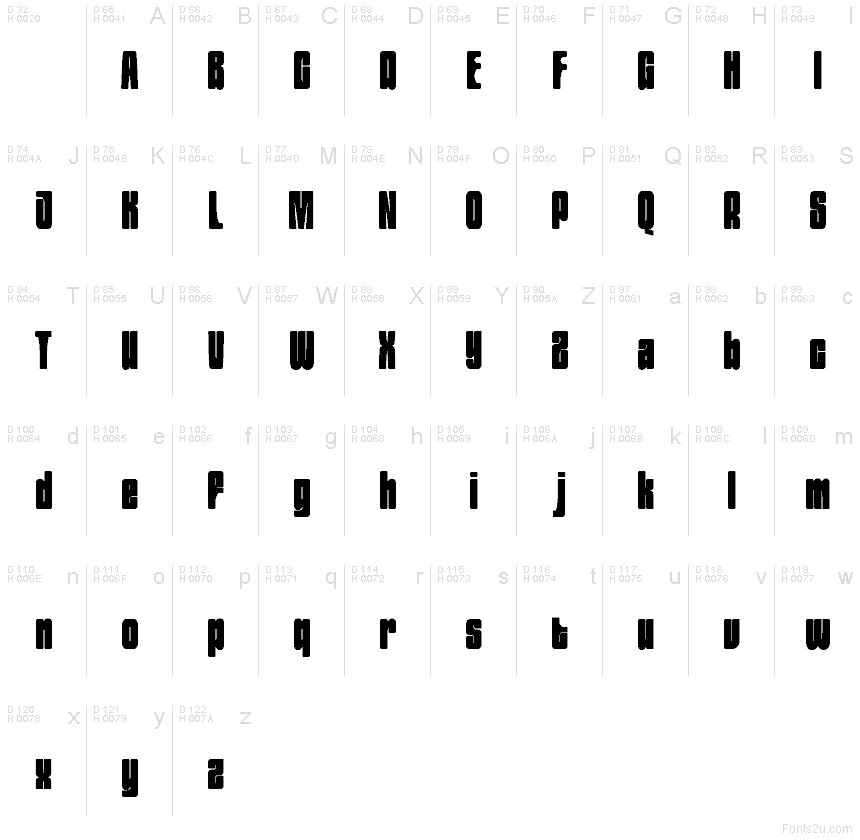
CS Central Drawn font, from Craft Supply Co., is a condensed display typeface with an industrial and geometric design. The retro character of this bold font gives it a distinctive aesthetic with a strong presence. Created by modernist influence, it is defined by its solid permanent shape and impactful professional look.
The free display font will add elegance to logos, titles, labels, posters, book covers, websites, and apparel designs. CS Central Drawn is also perfect for videos such as films and TV series but can be equally attractive in other media projects as well as packaging.